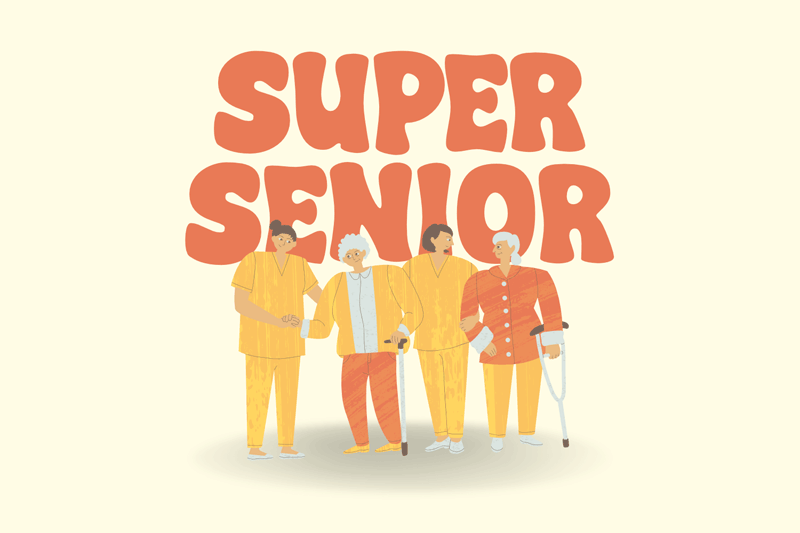
Preview and download Super Senior Font. Created by fsuarez913 in Fancy Cartoon styles with Free for personal use license.
This font is for PERSONAL USE ONLY!. If you want to use this font for commercial purposes, you will need to purchase a commercial license. You can purchase a commercial license at https://allsuperfont.com/product/super-senior/ Super Senior: A Bold, Round & Fun Font Super Senior bursts onto the scene with a personality as big as its characters! This bold and round font is designed to bring a touch of fun and whimsy to any project. |